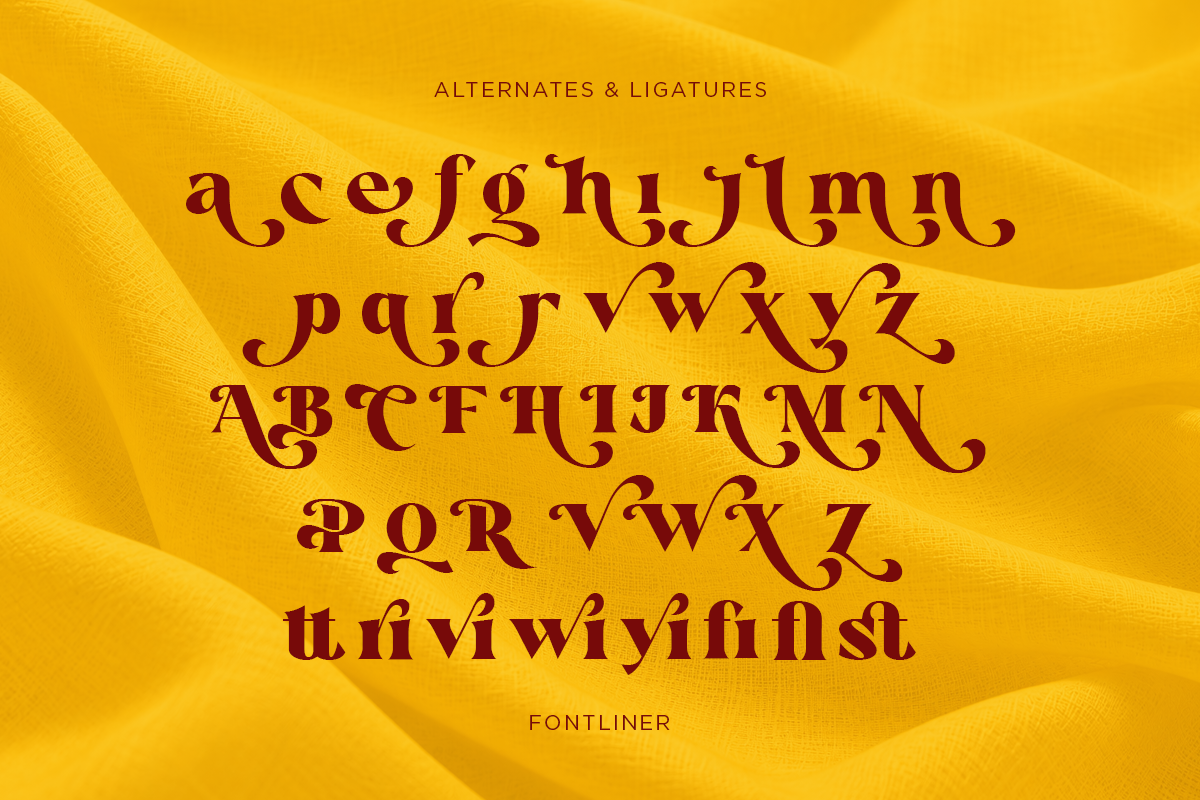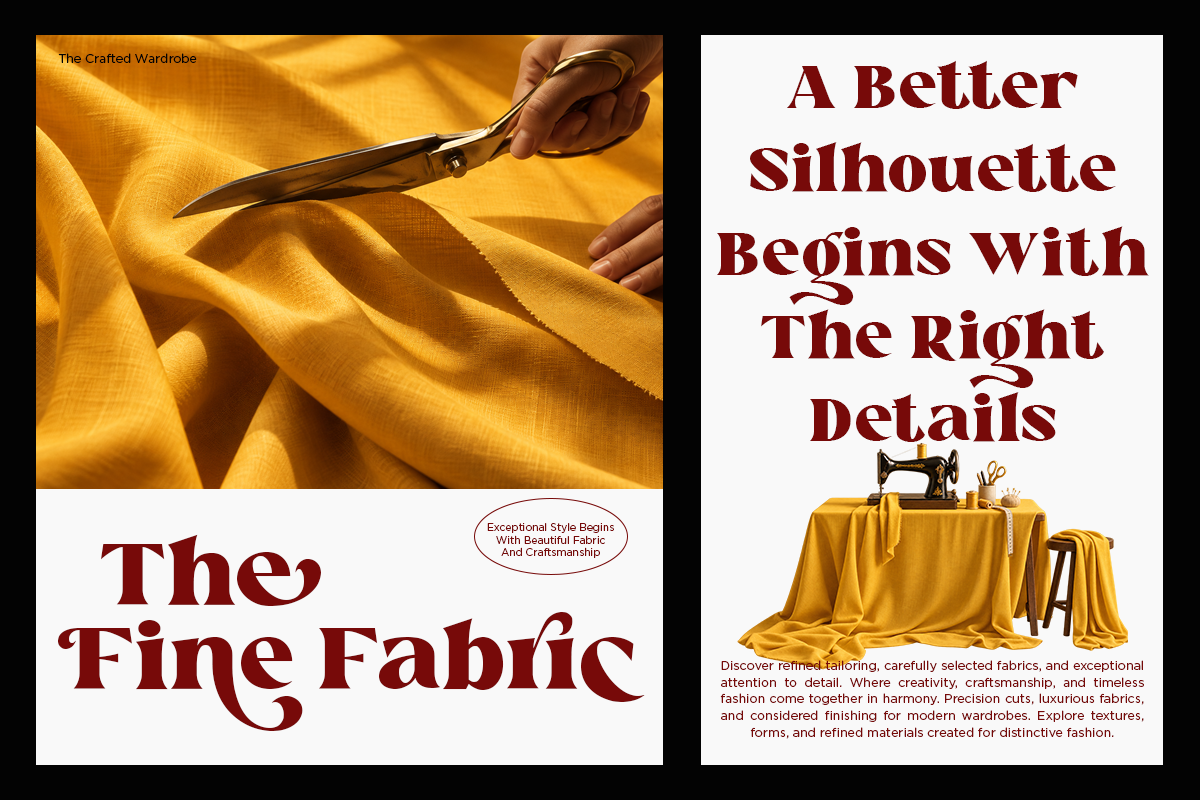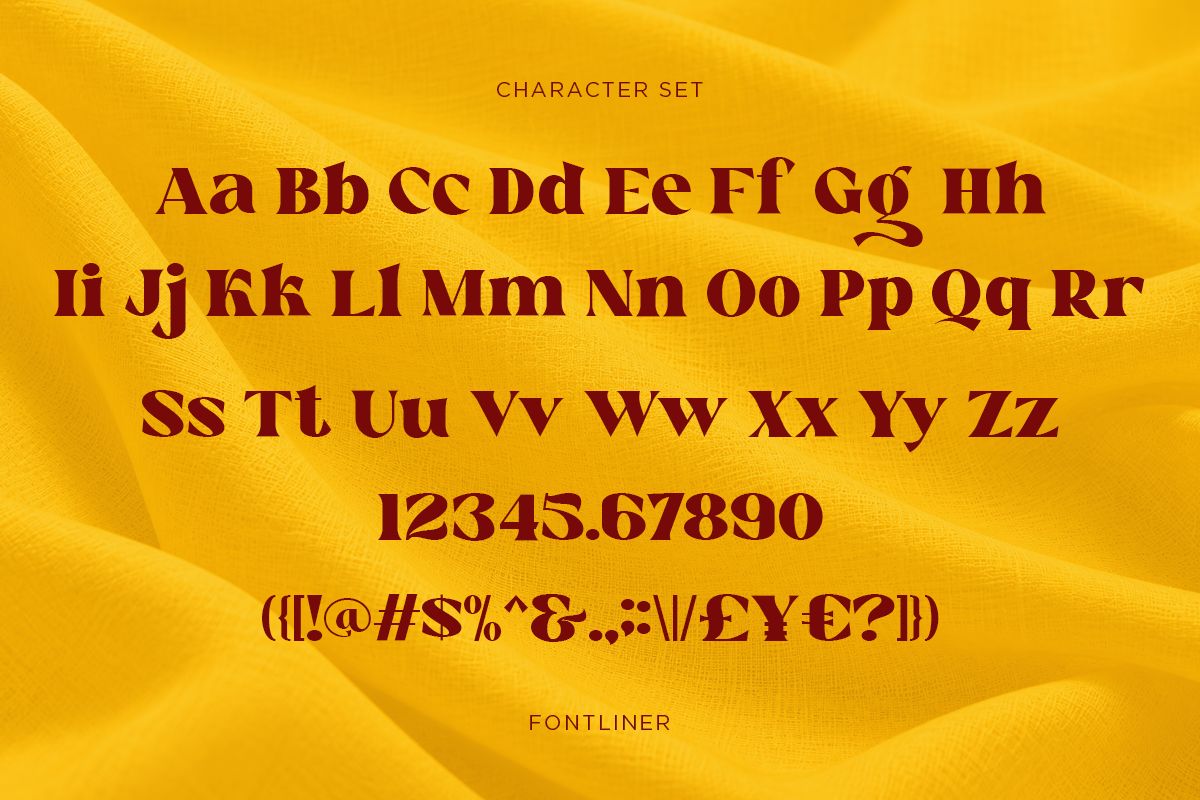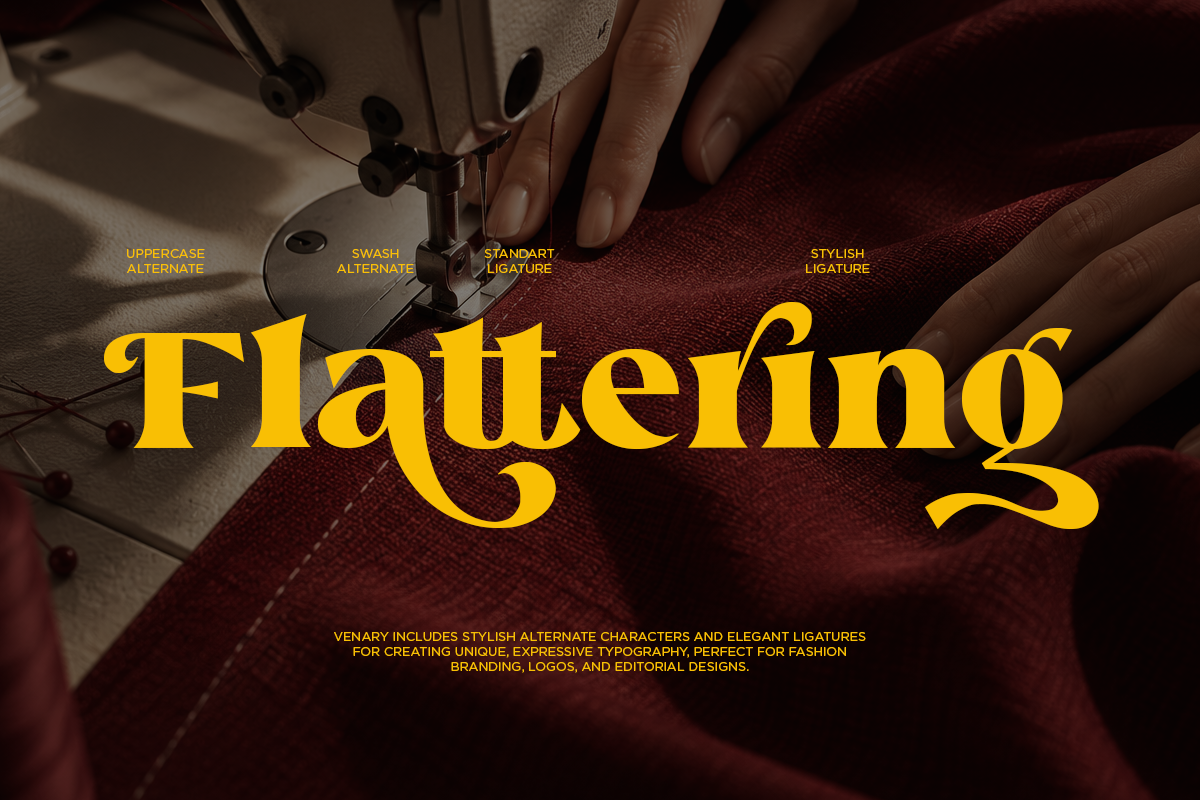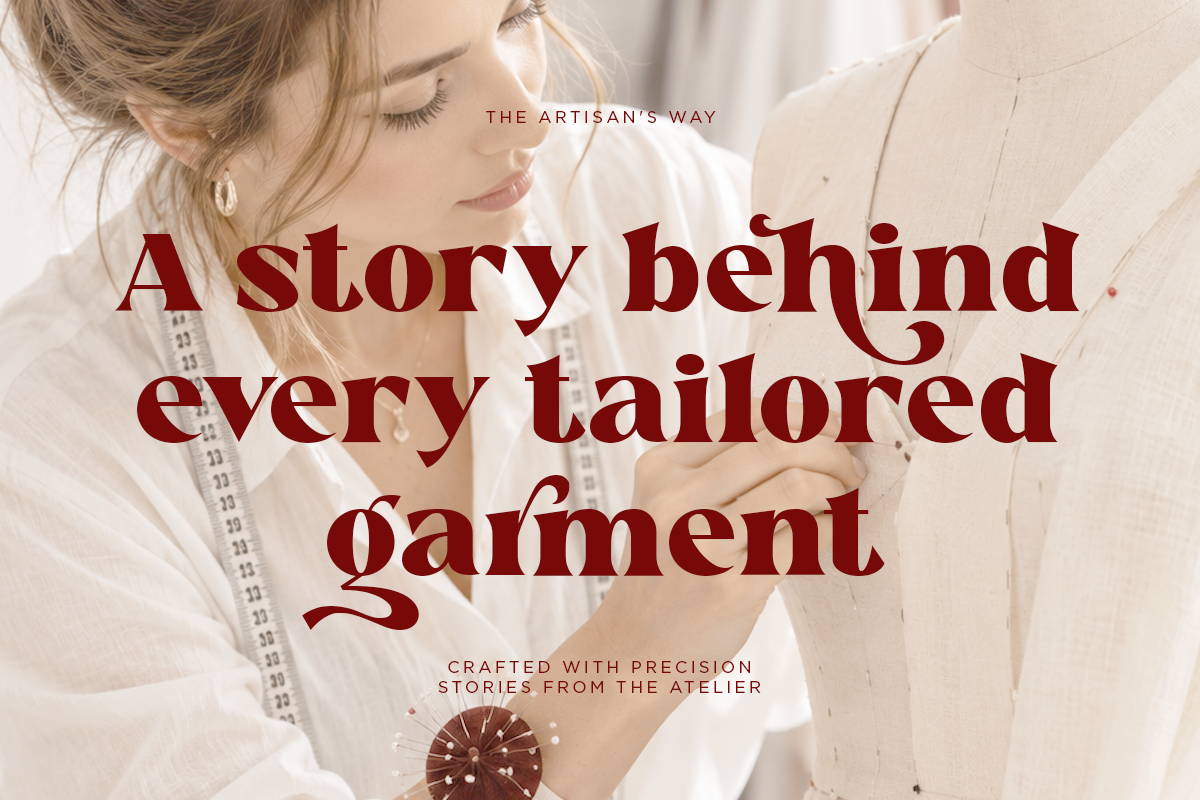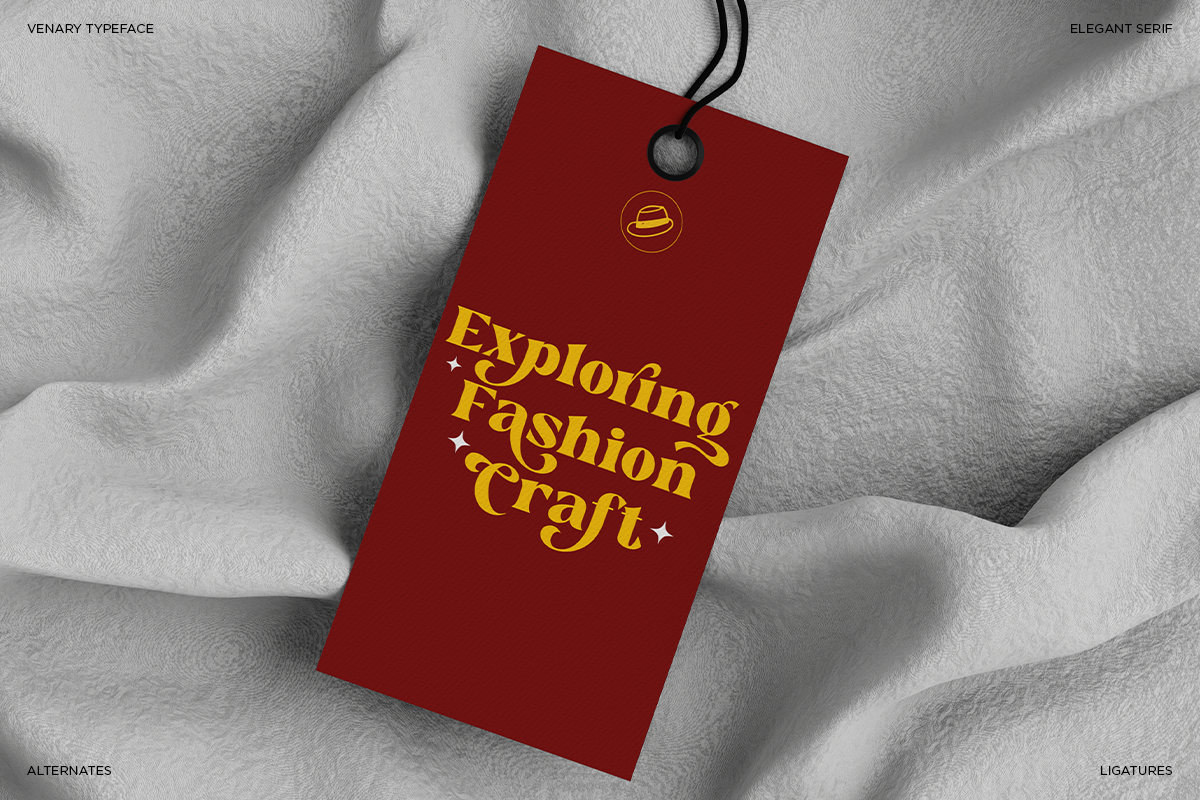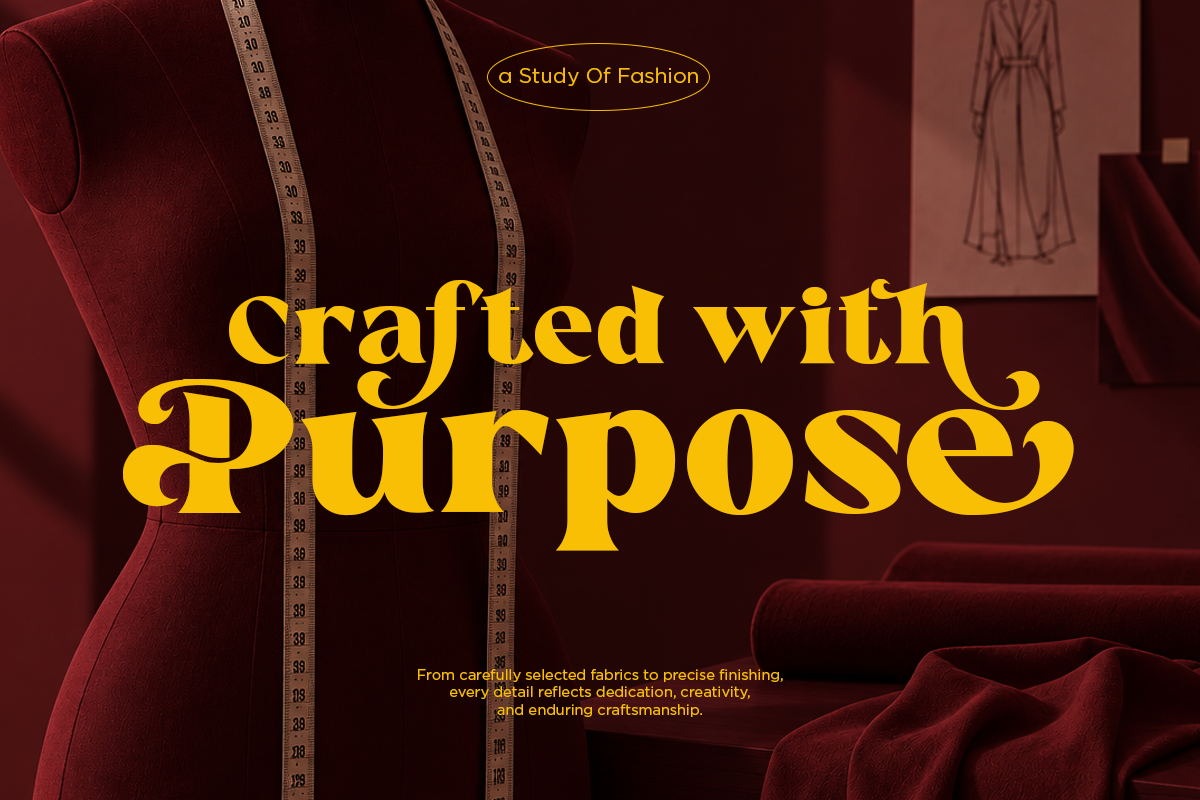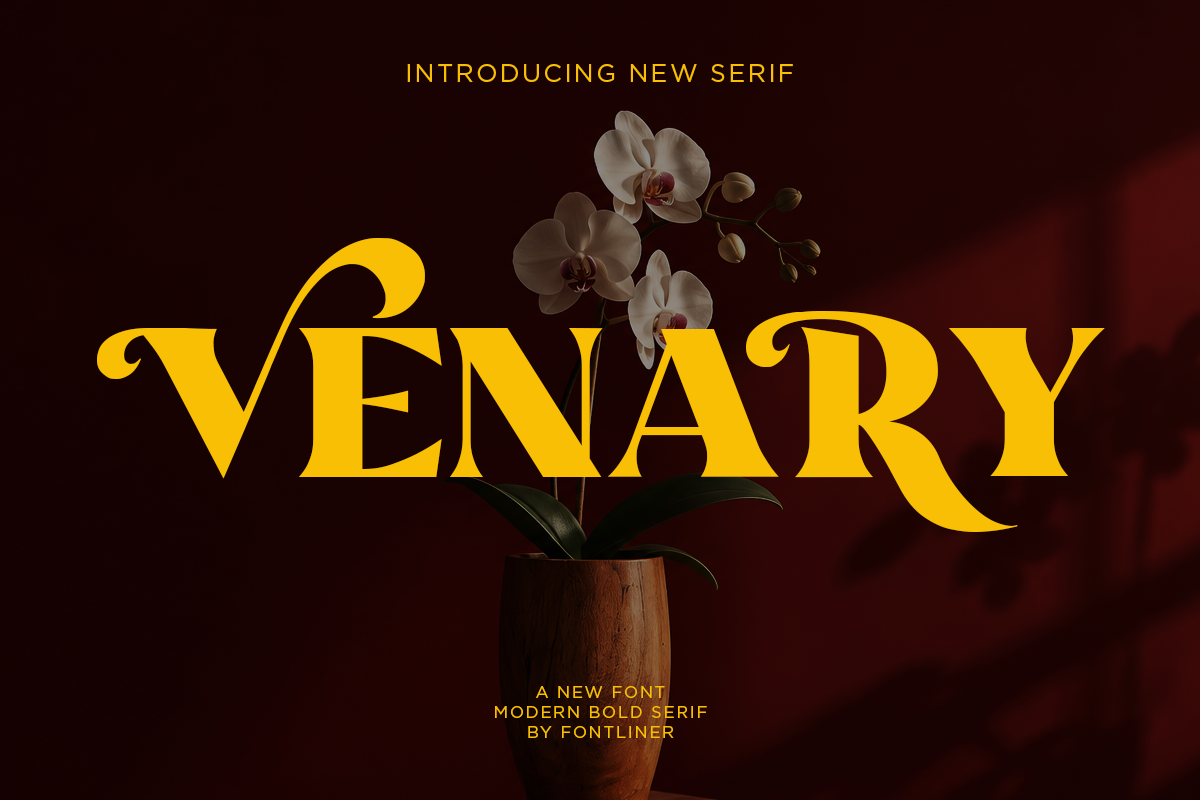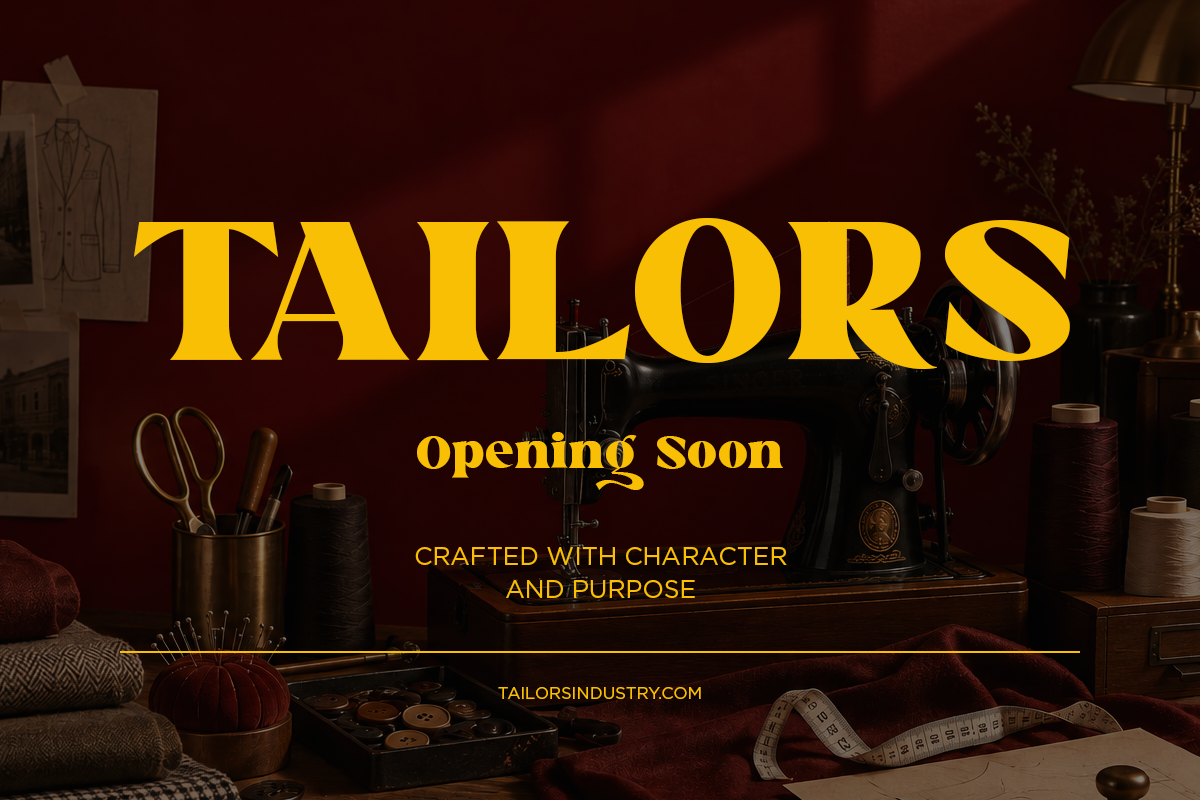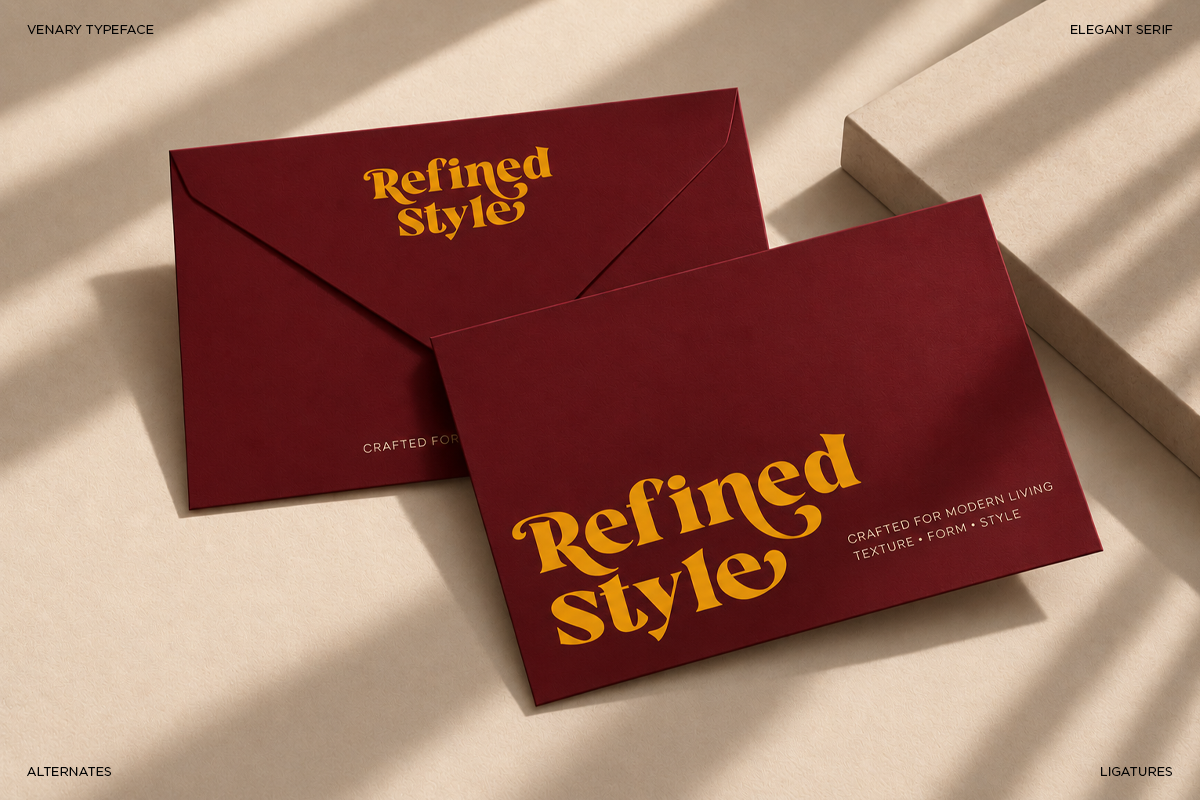
Venary - Elegant Fashion Serif Font
Venary is a sophisticated fashion display serif font designed to bring elegance, character, and a distinctive editorial presence to modern typography. Featuring expressive curves, high-contrast strokes, and graceful decorative details, Venary creates a refined visual style that feels luxurious, artistic, and fashion-forward.
Perfect for fashion branding, luxury logos, editorial layouts, magazine covers, beauty packaging, perfume labels, jewelry branding, boutique identities, posters, invitations, and social media designs. Its expressive letterforms work especially well for large headlines, elegant titles, and premium brand statements where typography needs to become part of the visual identity.
From couture-inspired campaigns to refined product packaging, Venary adds a polished and memorable character to your designs. Use it for fashion labels, beauty brands, lifestyle campaigns, editorial projects, product presentations, and sophisticated visual identities.
Regular and Italic
Stylistic Ligatures
Special Alternates
Number, Symbol, and Punctuation